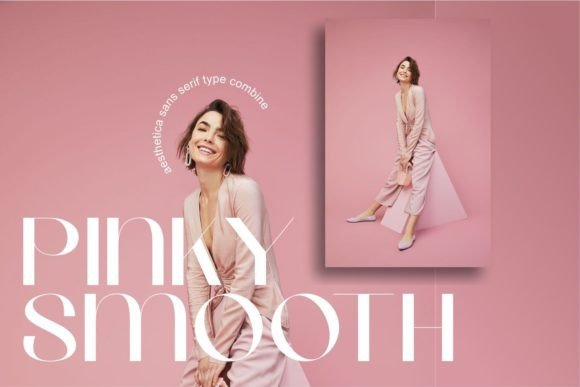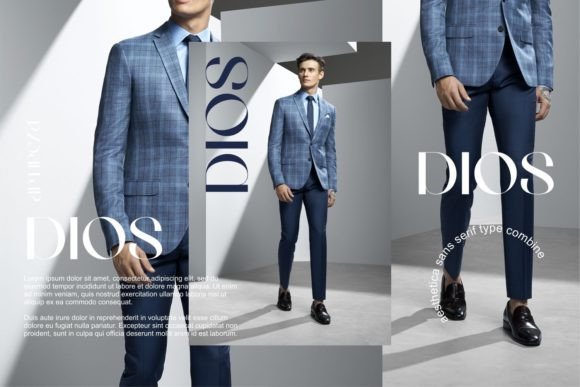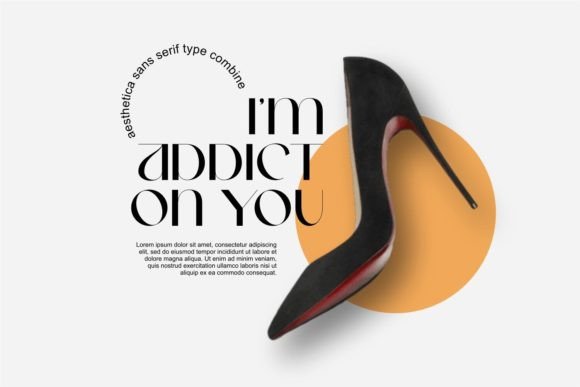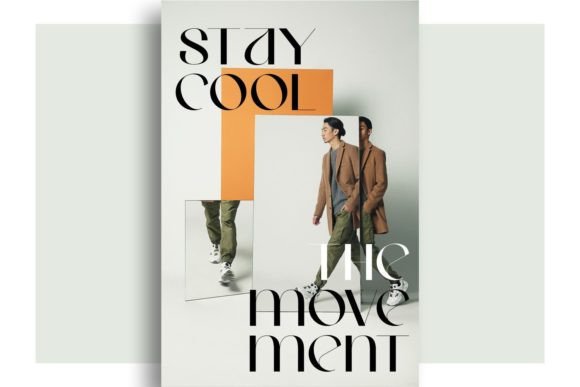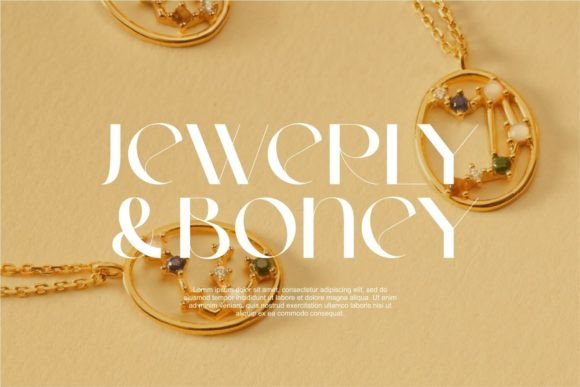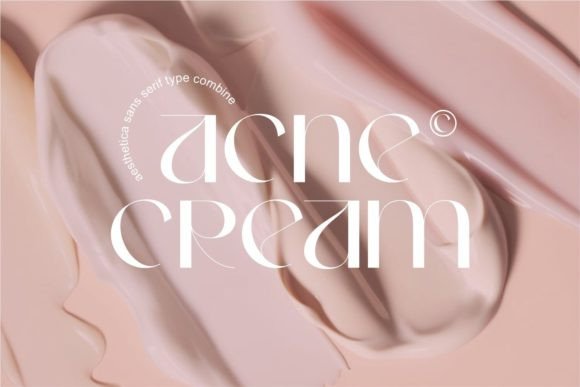
Ginola Font: Elevate Your Designs with Elegance and Sophistication
In the world of typography, a font can make or break a design. For designers and crafters seeking to add a touch of glamour to their projects, Ginola Font is an excellent choice. This sans serif typeface is flexible, elegant, and perfect for designs that emphasize aesthetics and beauty.
The Unique Characteristics of Ginola Font
Ginola Font boasts an interesting curved shape that sets it apart from other sans serif typefaces. Its elegant nature makes it suitable for a wide range of design applications, from branding and invitations to editorial design. The font’s curves add a touch of sophistication, making it perfect for designers who want to create visually stunning projects.
One of the standout features of Ginola Font is its versatility. It can be used for various design projects, including:
- Branding: Ginola Font is perfect for creating elegant and sophisticated brand identities. Its unique curved shape makes it memorable and distinctive.
- Invitations: Add a touch of glamour to your invitations with Ginola Font. Its elegant nature makes it suitable for formal events, such as weddings and galas.
- Editorial Design: Ginola Font is ideal for editorial design, including magazines, newspapers, and books. Its clear and readable design makes it perfect for body text and headlines.
Why Choose Ginola Font?
With so many fonts available, why choose Ginola Font? Here are a few reasons:
- Elegance: Ginola Font exudes elegance and sophistication, making it perfect for designers who want to create high-end designs.
- Flexibility: Ginola Font is flexible and can be used for various design applications.
- Readability: Ginola Font is clear and readable, making it perfect for body text and headlines.
Tips for Using Ginola Font
To get the most out of Ginola Font, here are a few tips:
- Pair it with other fonts: Ginola Font pairs well with other fonts, including serif and script fonts. Experiment with different combinations to find the perfect pairing.
- Use it for headlines: Ginola Font is perfect for headlines and titles. Its elegant nature makes it suitable for grabbing attention.
- Experiment with colors: Ginola Font looks great in various colors. Experiment with different colors to find the perfect shade for your design.
Ginola Font is a versatile and elegant sans serif typeface that is perfect for designers and crafters seeking to add a touch of glamour to their projects. Its unique curved shape, flexibility, and readability make it suitable for various design applications. Whether you’re creating a brand identity, invitation, or editorial design, Ginola Font is an excellent choice.